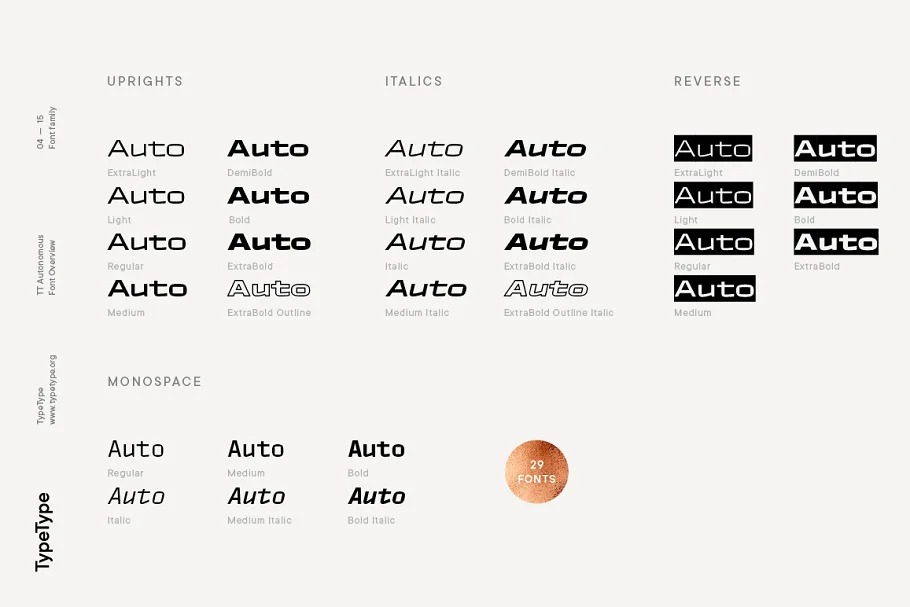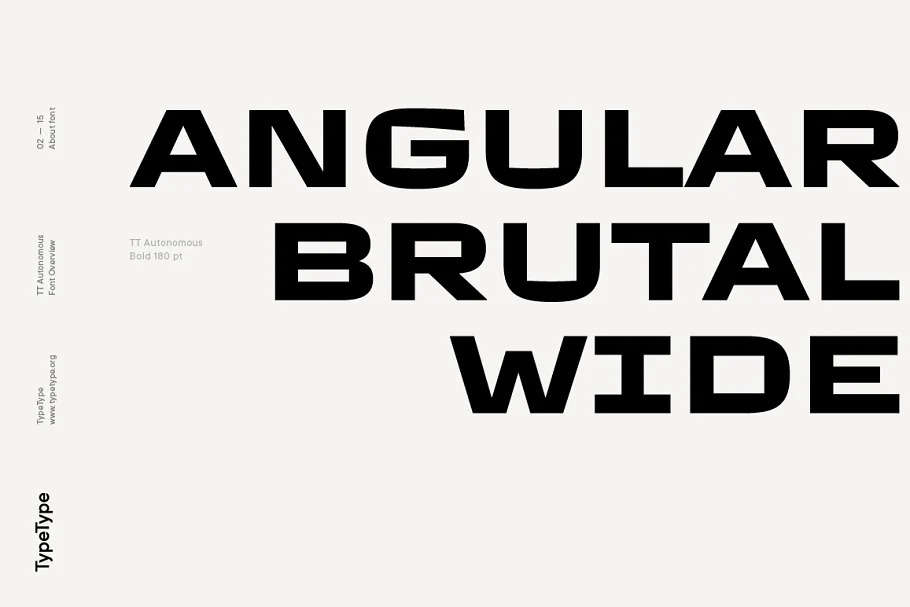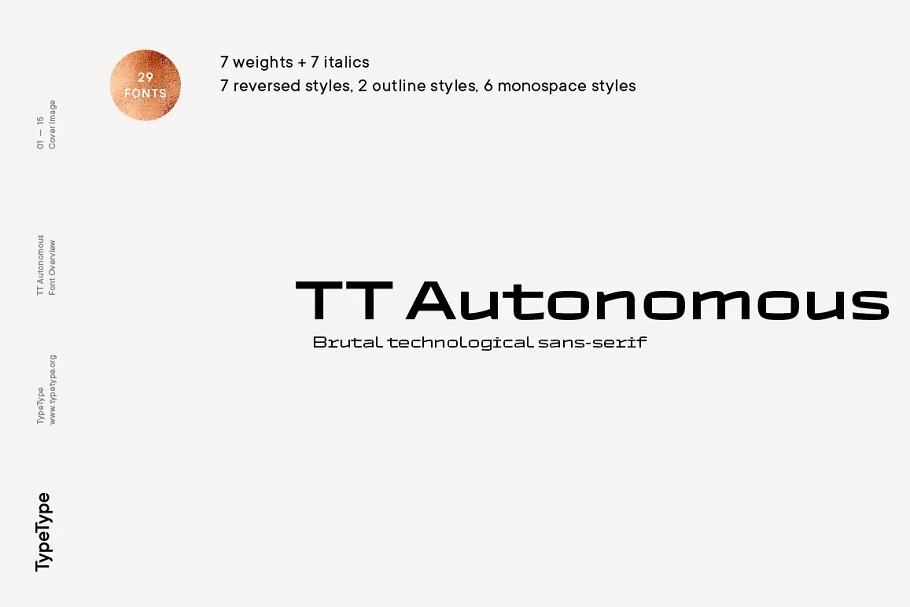
TT Autonomous Font Family
TT Autonomous Sans Serif Font is a unique sans serif font with sharp curves and contrasting thicknesses. The basic visual characteristic of the typeface is the noticeable squareness of the characters and angular internal space. In addition, the typeface proportions tend to appear monospaced, but they are not really monospaced. The width of the characters is inspired by automobile logotype proportions, which are mostly rather wide.
We could not disregard the fact that code lines in software for autonomous cars are traditionally typed using monospaced fonts and added a special monospaced subfamily to the TT Autonomous typeface. Thanks to the squareness of the characters inherited from the main family and the real monospace properties, the character forms in the subfamily turned out very specific and interesting. This is especially true for oblique monospaced fonts, which are true italics.